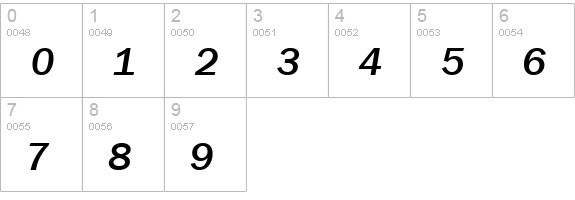
FranklinGothMediumCTT Italic Font Details
FranklinGothMediumCTT Italic is a distinctive, italic variant in the FranklinGothMediumCTT typeface family \xE2\x80\x94 well suited to design and typography projects.
FranklinGothMediumCTT Italic font is a stylish and modern typeface that exudes sophistication and elegance. Its sleek and slanted design gives any text a touch of flair and personality. The italicized version of the FranklinGothMediumCTT font adds a dynamic and artistic element to any project, making it perfect for headings, titles, and other eye-catching text. The best part about FranklinGothMediumCTT Italic font is that it is free to download at FontsMarket.com. This means that you can easily add this beautiful font to your collection without breaking the bank. Whether you're a designer looking for a new font to elevate your designs or a business owner in need of a fresh look for your branding, FranklinGothMediumCTT Italic font is a versatile and stylish choice that won't cost you a thing. Download it today and see the difference it can make in your projects!